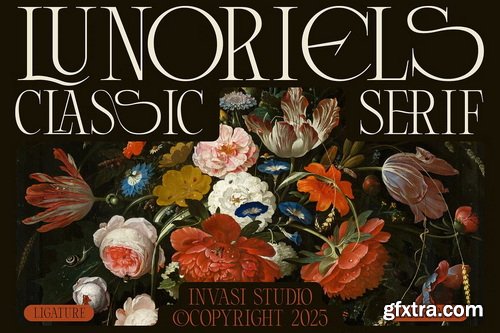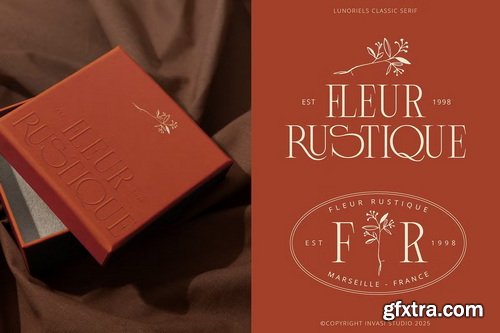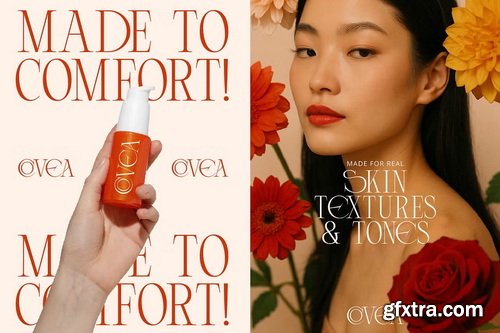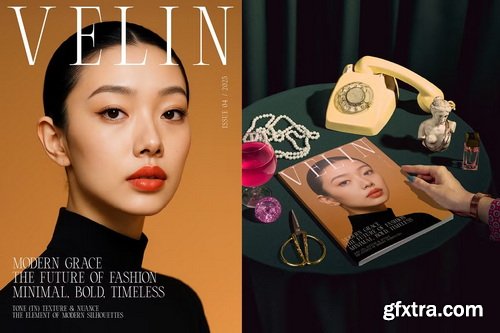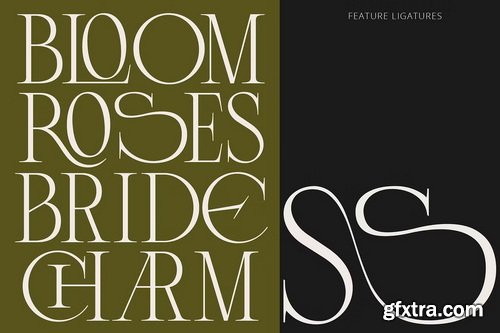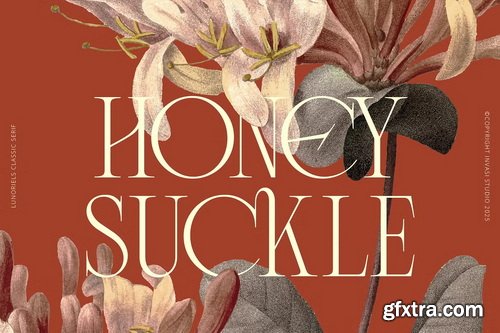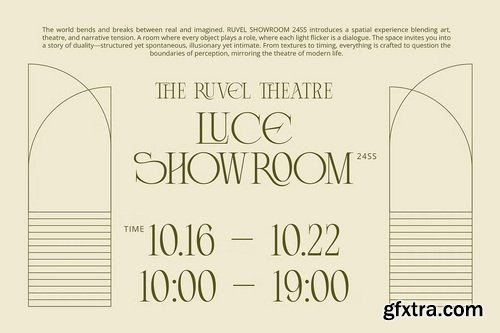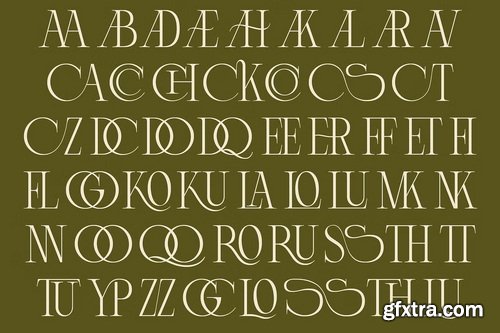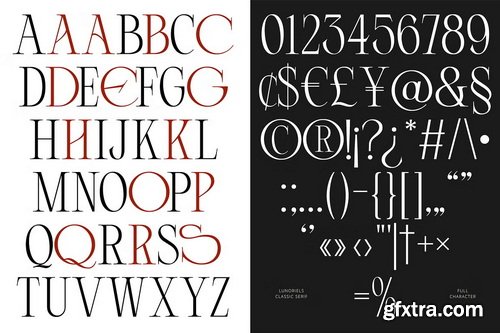
Step into a world of timeless elegance with Lunoriels — a classic condensed serif font designed for sophistication. Inspired by vintage editorial layouts and old-world charm, Lunoriels blends modern refinement with artistic detail, making it perfect for romantic branding, fashion editorials, high-end packaging, wedding stationery, and cinematic title design. Multilingual support is included to expand your reach across global designs, while its high contrast and thin strokes maintain elegance in both print and digital uses. Whether you’re designing upscale packaging, boutique branding, or editorial spreads, Lunoriels brings a refined flourish to any creative project.